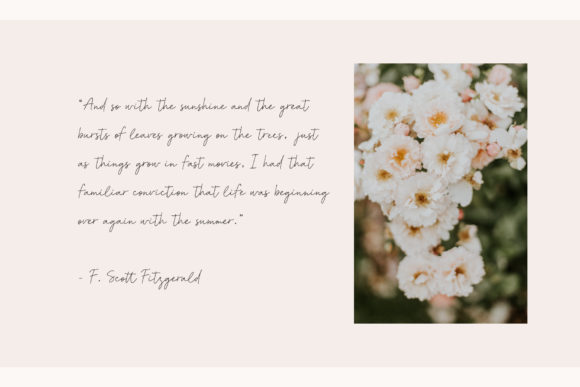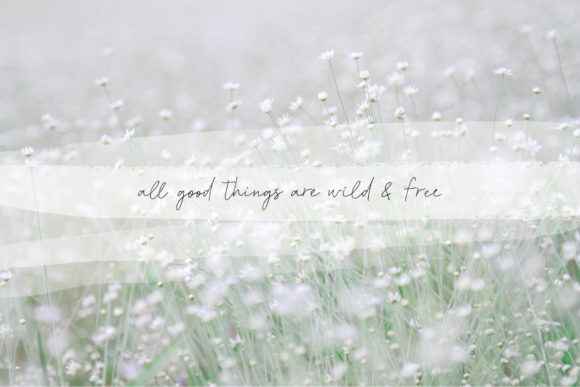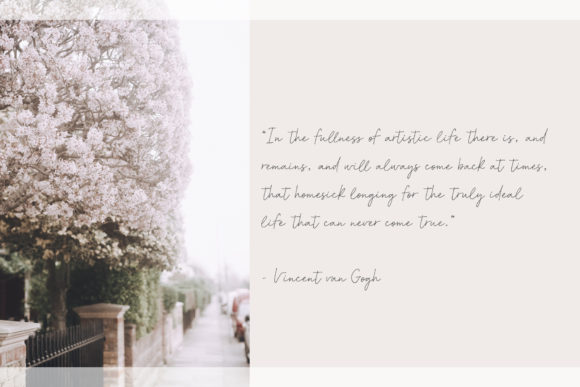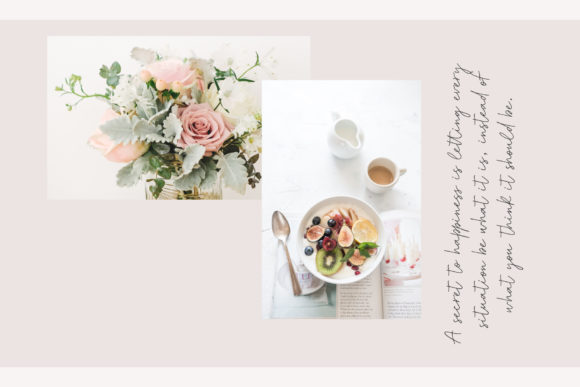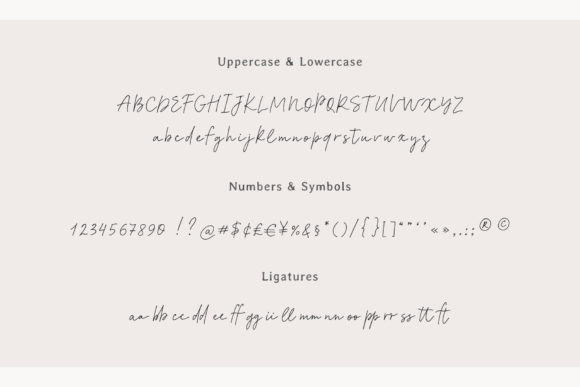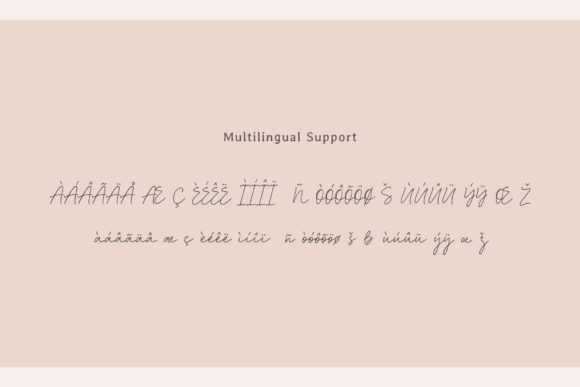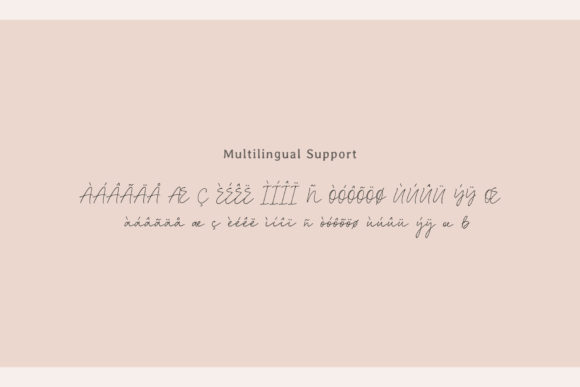
Lighthouse Font
About Lighthouse Font
Lighthouse is a casual and elegant handwritten font. This font will be perfect for quotes, branding, social media, stationery, photography and much more.